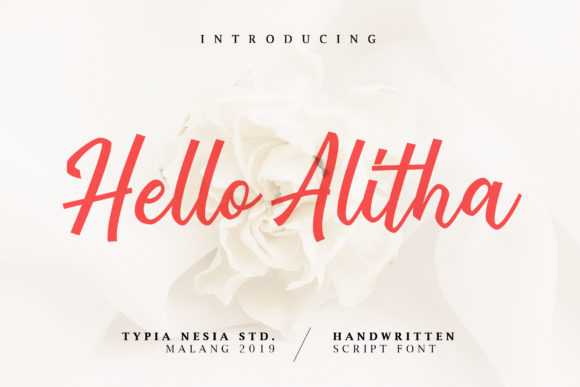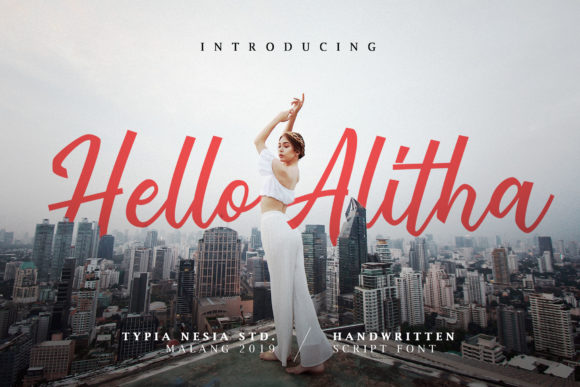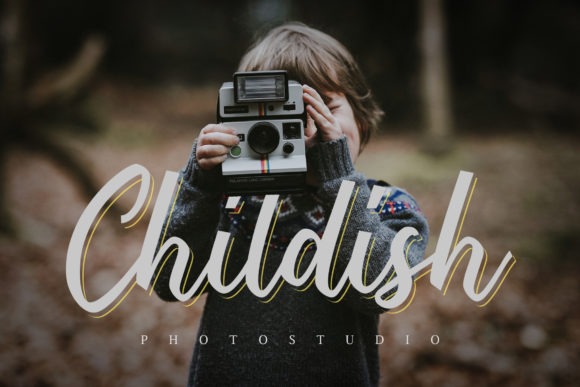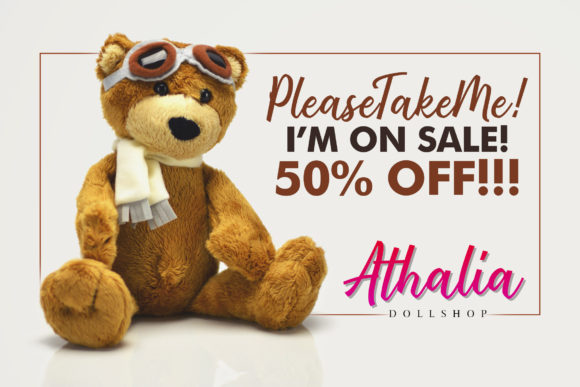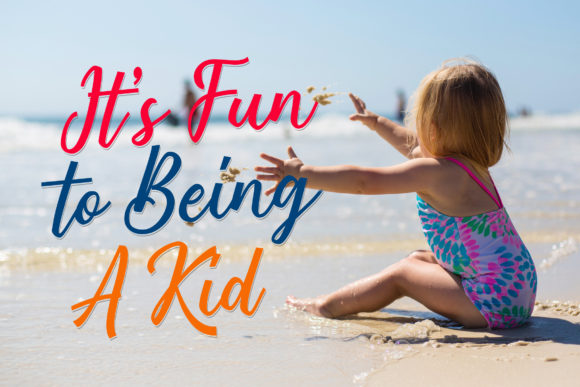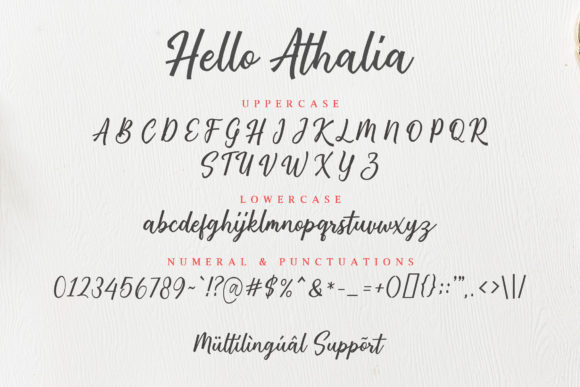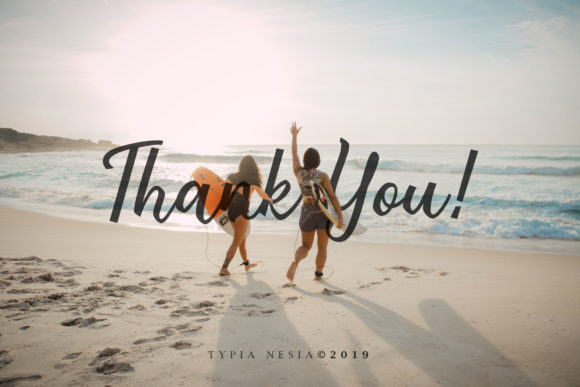
HomeScript FontsHello Alitha Font Script Fonts Hello Alitha Font FacebookXPinterestWhatsApp Hello Alitha Font Poster 2 Hello Alitha Font Poster 3 Hello Alitha Font Poster 4 Hello Alitha Font Poster 5 Hello Alitha Font Poster 6 Hello Alitha Font Poster 7 About Hello Alitha Font Hello Alitha is a script with handwritten style with flowing curves. Get inspired by its cheerful charm! DOWNLOAD ON CREATIVE FABRICAThis font is sold and delivered by Creative Fabrica. Font Canyon may earn a commission if you buy through this link. People also explored Voppexa Font Quincyland Font Winter Logistics Font Quite Word Font Milky White Font Heather Red Bella Canvas 3005 V Neck Declop Font Roadney Adamsong Font Gettalk Font 320 0 TagsHello Alitha Font Previous articleHelostar FontNext articleRomello Font LEAVE A REPLY Cancel reply Comment: Please enter your comment! Name:* Please enter your name here Email:* You have entered an incorrect email address! Please enter your email address here Website: Save my name, email, and website in this browser for the next time I comment. Personal Use Free Creativo Personal Use Free Read more about this font Urkelian Personal Use Free Read more about this font Clumed Personal Use Free Read more about this font Fibon Personal Use Free Read more about this font BLOG Where to Buy American Fonts Online in 2024 Where to Buy American Fonts Online: The Ultimate Guide for 2024 Looking for the perfect American font to elevate your design projects? You're in the... Elegant Wedding Invitation Fonts – Handwritten & Script Fonts Top 10 Handwritten Fonts That Elevate Your Designs Using Fonts in Digital Marketing: Tips to Strengthen Your Brand Identity